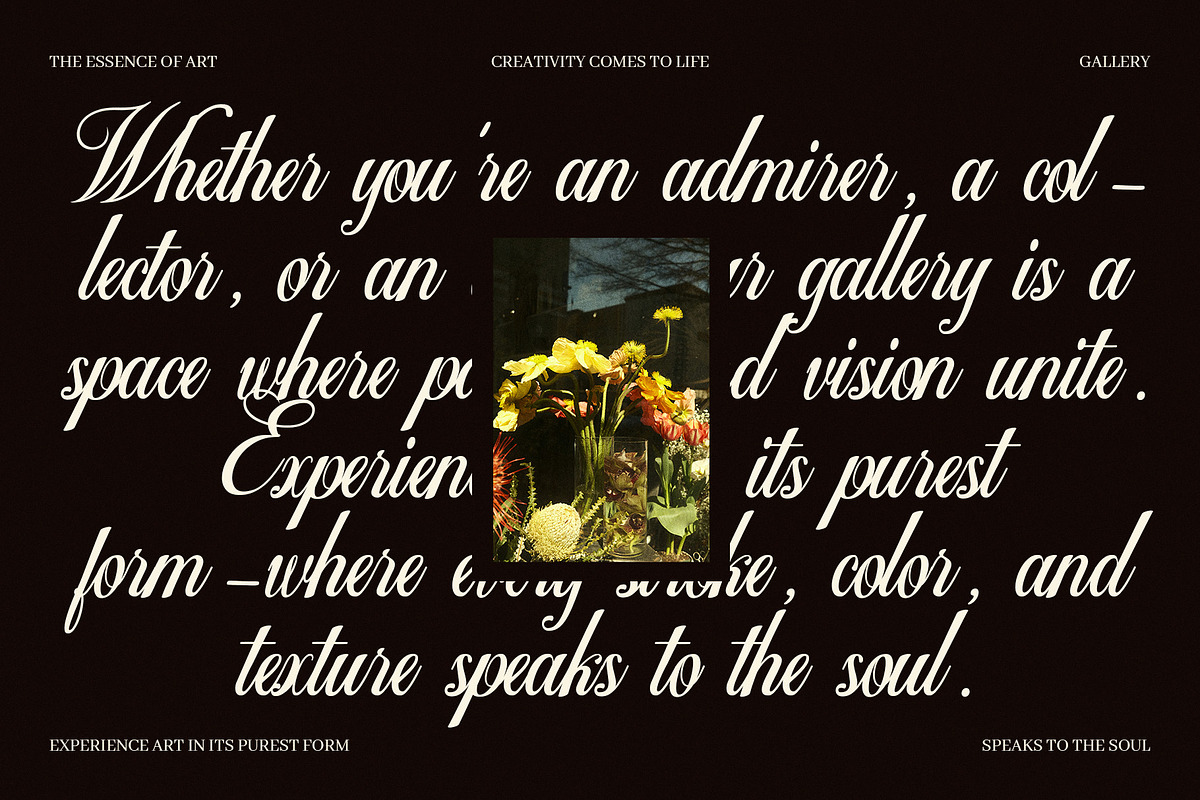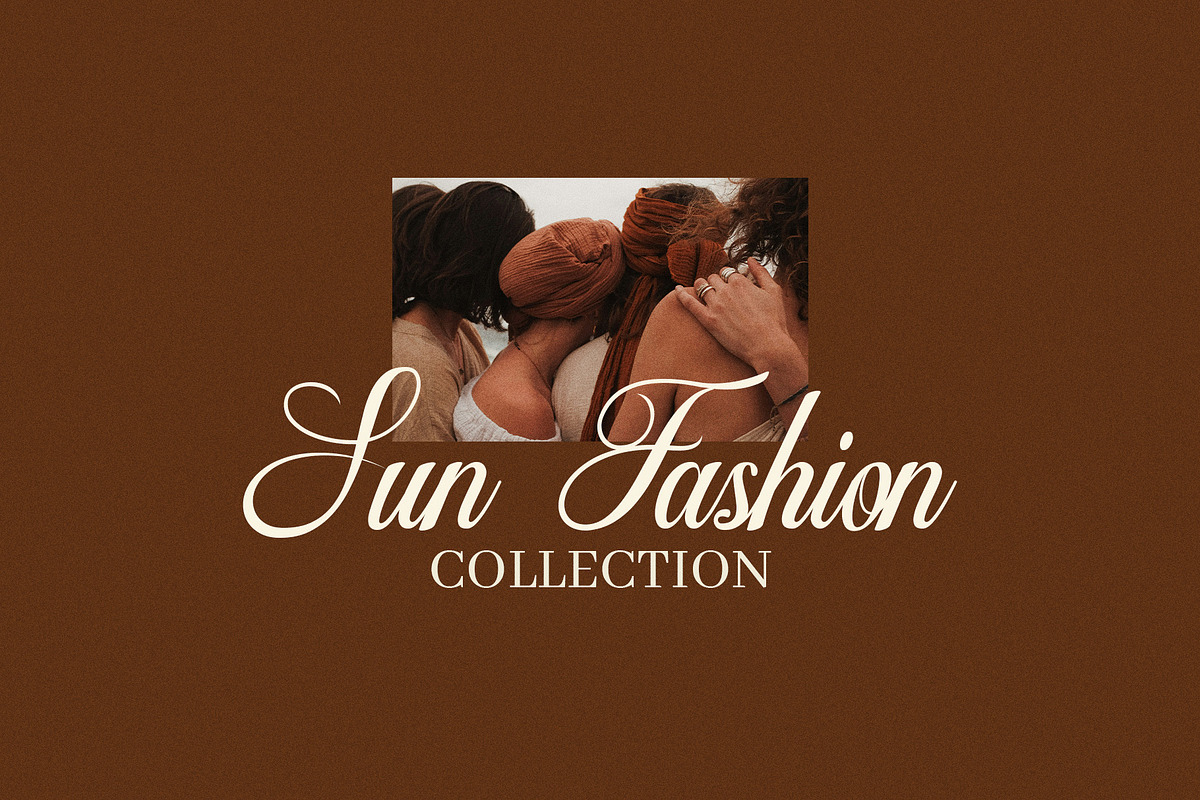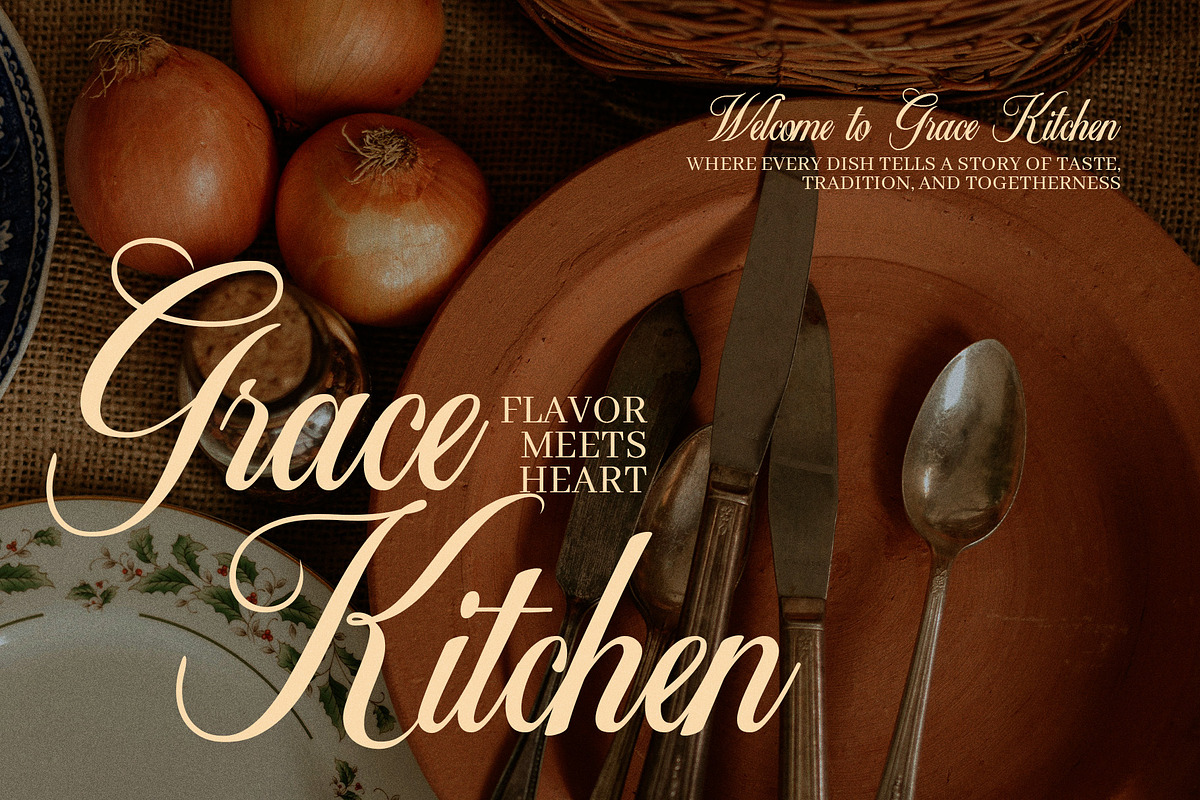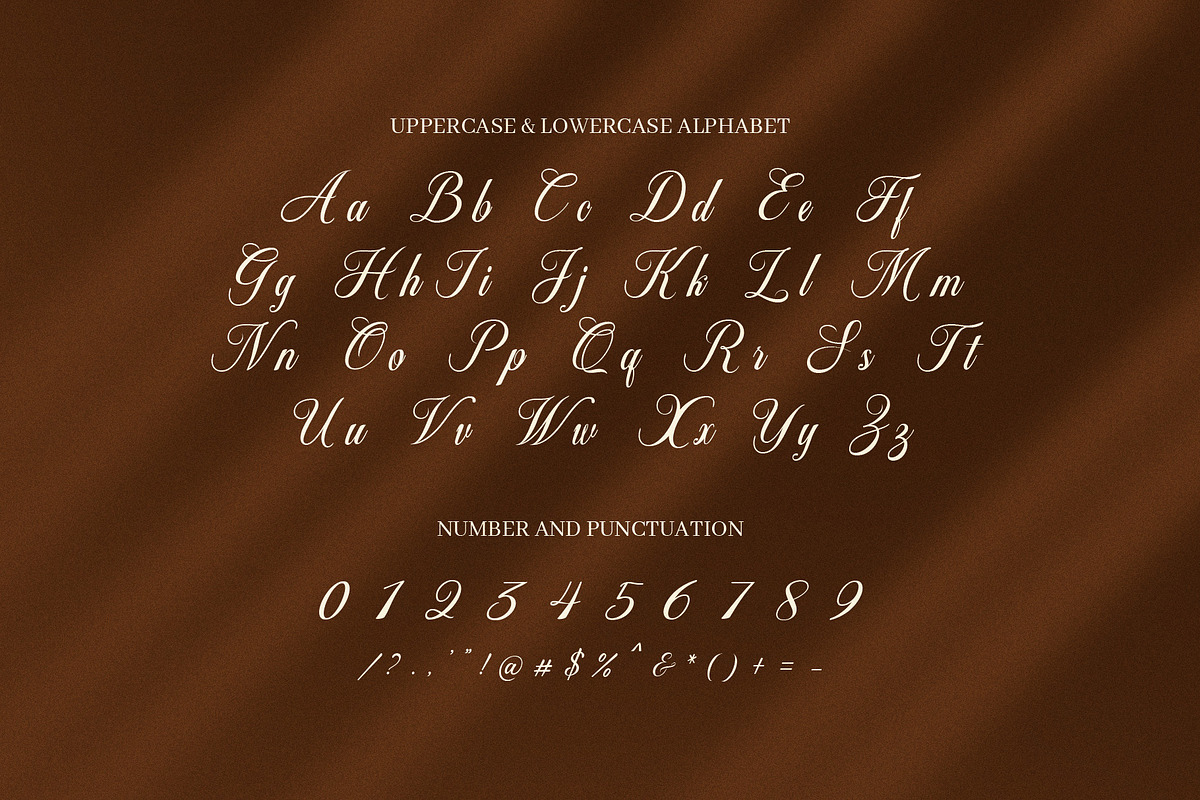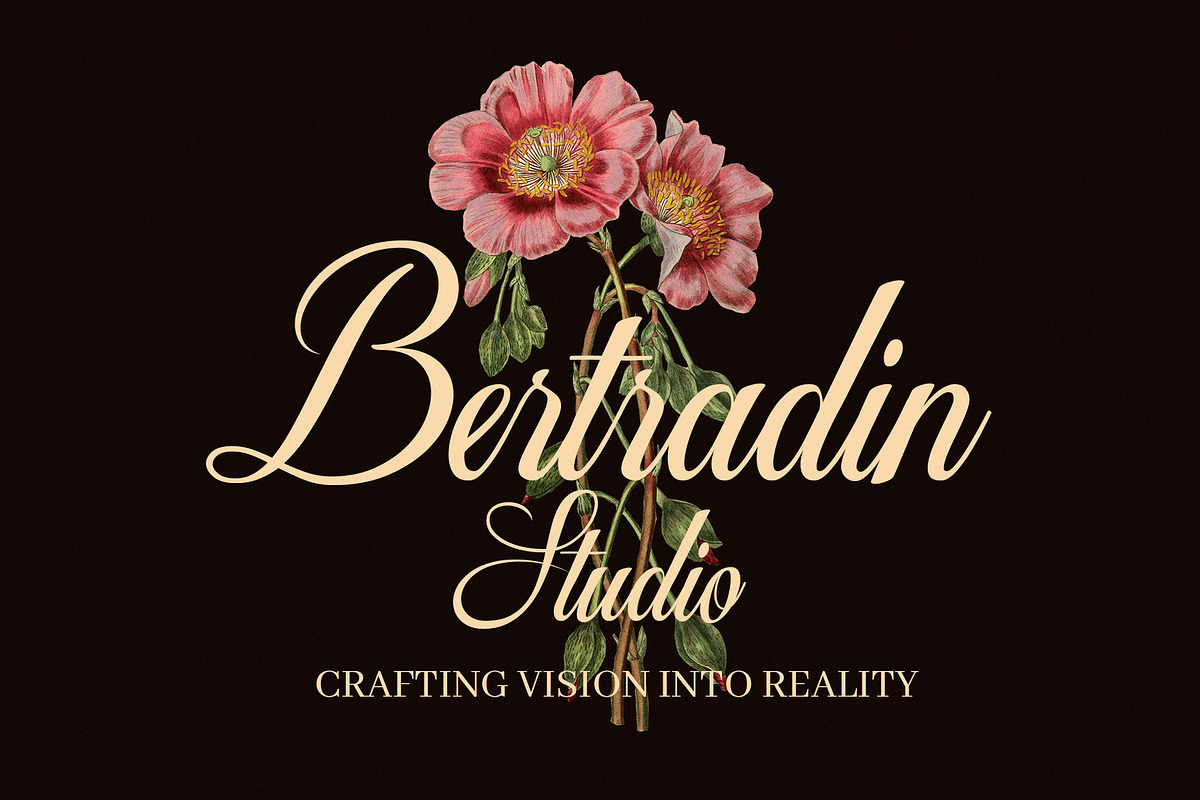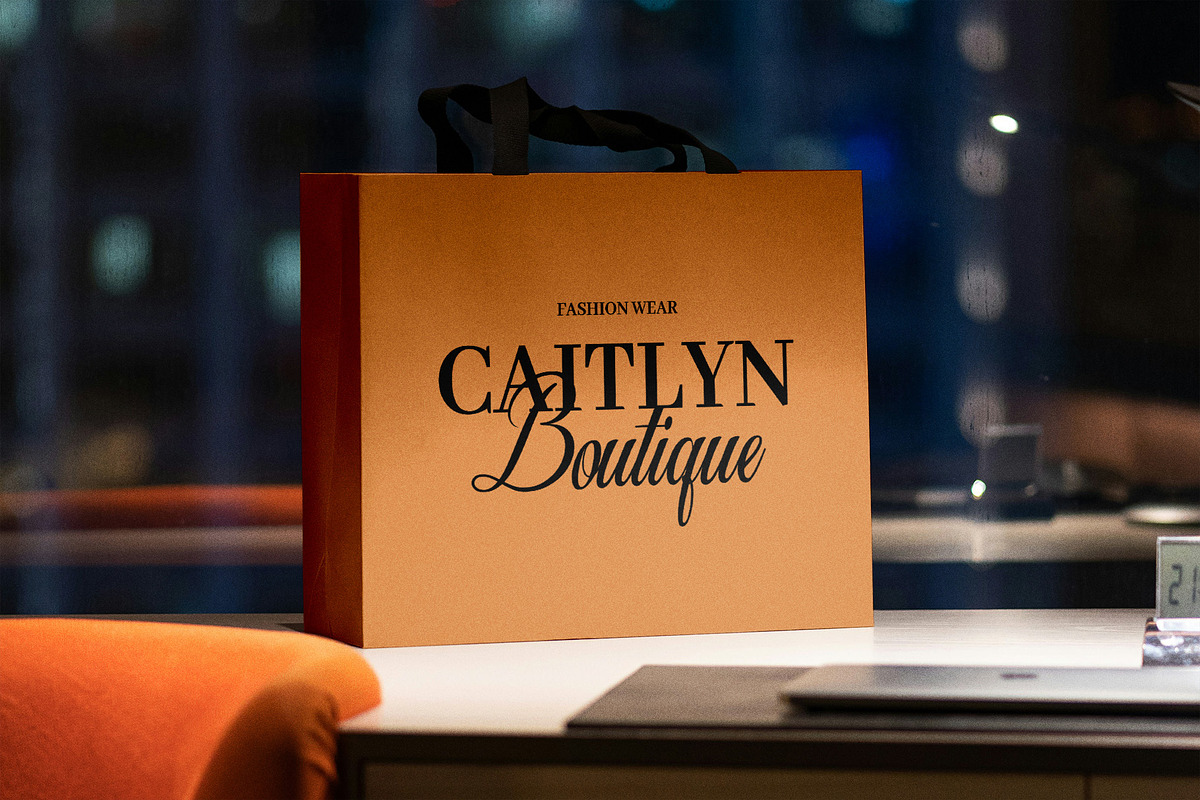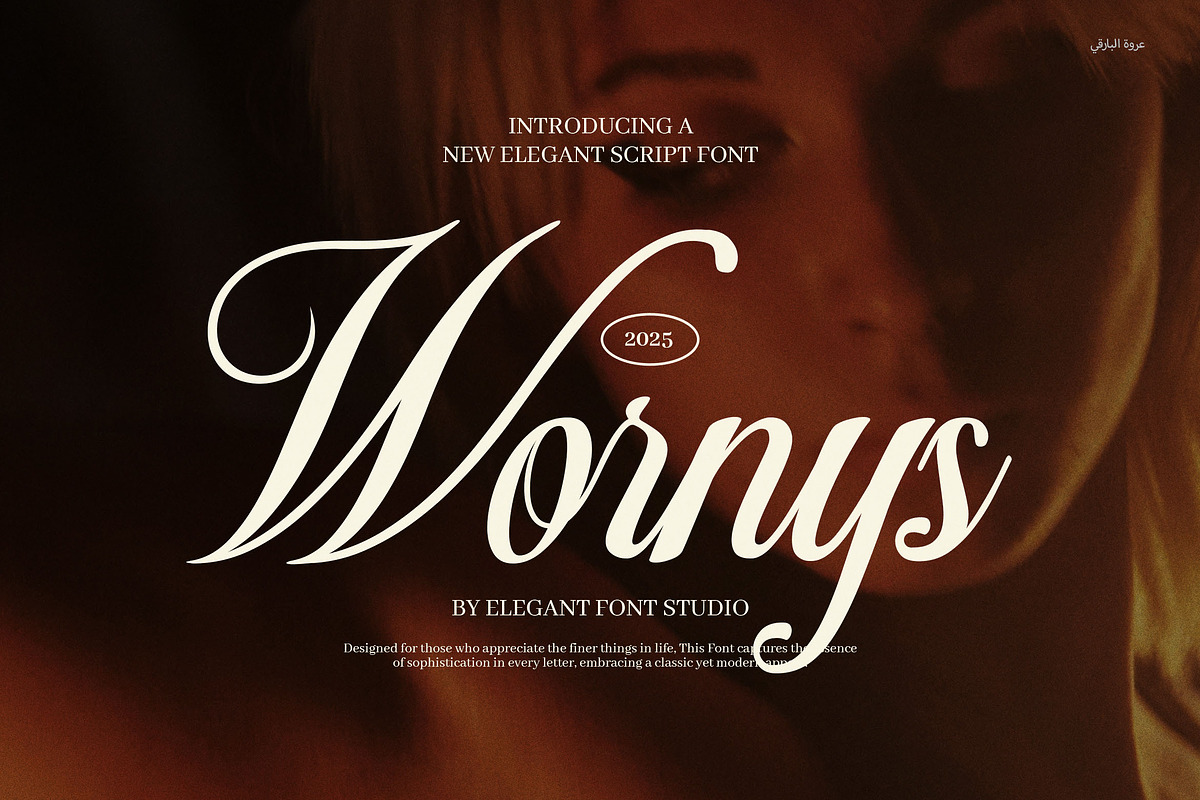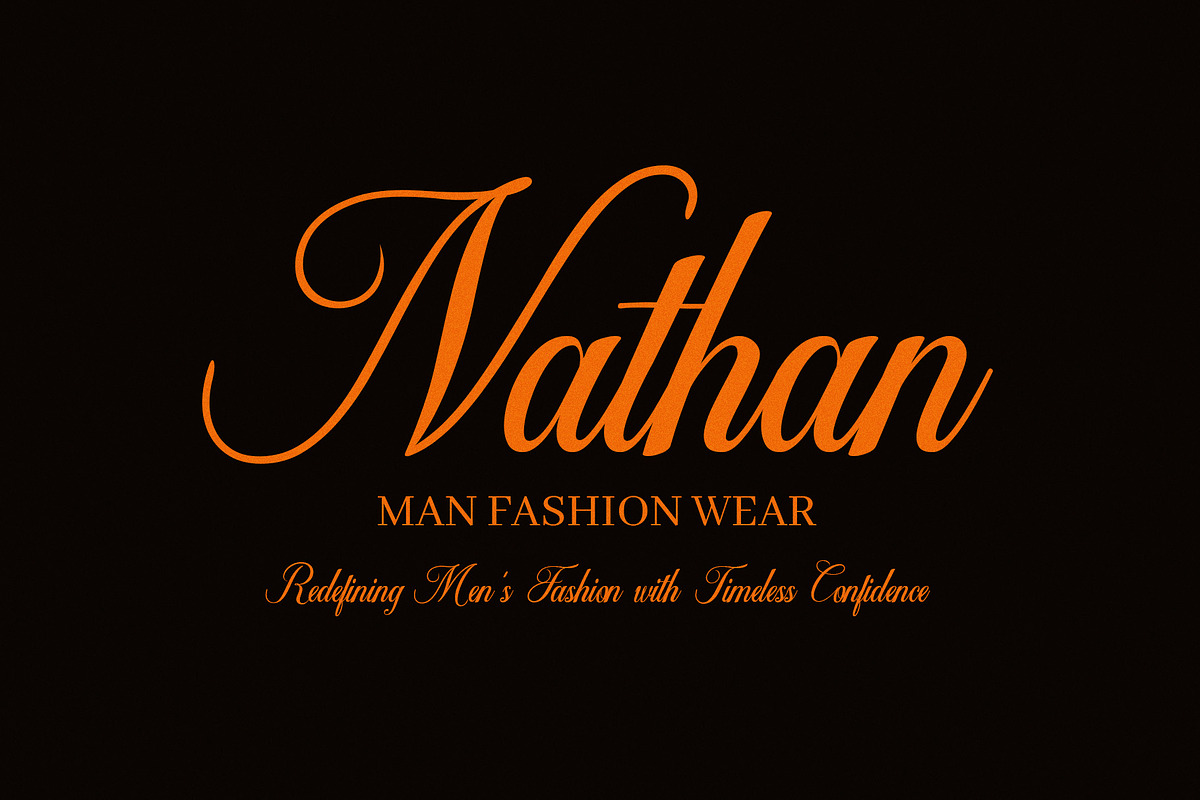
Wornys Wedding Script Font
Discover the timeless elegance of Wornys Wedding Script Font, a beautifully crafted script typeface designed to bring sophistication and charm to any project. This font features smooth, flowing lines with exquisite ligatures and calligraphic alternates that add a refined touch to your work. Whether you’re creating wedding invitations, branding, or luxury packaging, Wornys ensures your design stands out with grace and style.
Perfectly suited for a variety of professional uses, this font elevates logos, business cards, magazine covers, and advertisements with a touch of class. Its versatility makes it ideal not only for weddings but also for fashion branding, music albums, posters, and websites. The carefully designed characters maintain readability without compromising artistic flair, making your text both beautiful and legible.
Key Features of Wornys Wedding Script Font:
Elegant and smooth calligraphy style
Rich set of ligatures and alternate characters for unique designs
Perfect for luxury branding, wedding invitations, and event stationery
Suitable for professional use in logos, magazines, and advertisements
Designed for clear readability and artistic beauty
Elevate your creative projects with a font that combines elegance, luxury, and versatility. Choose Wornys Wedding Script Font to give your designs a sophisticated edge that will capture attention and inspire admiration.